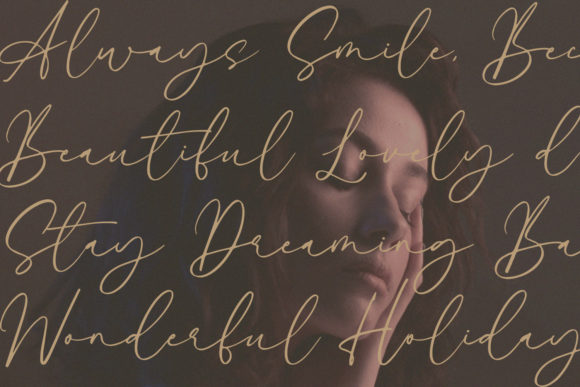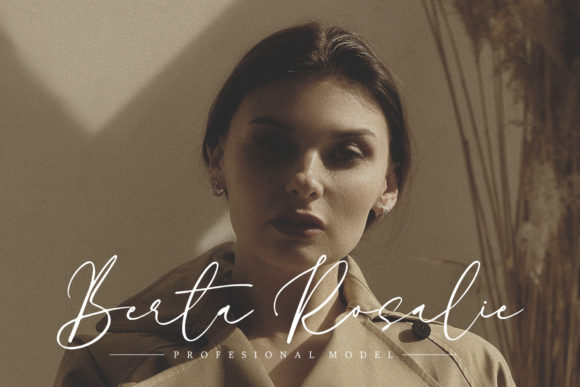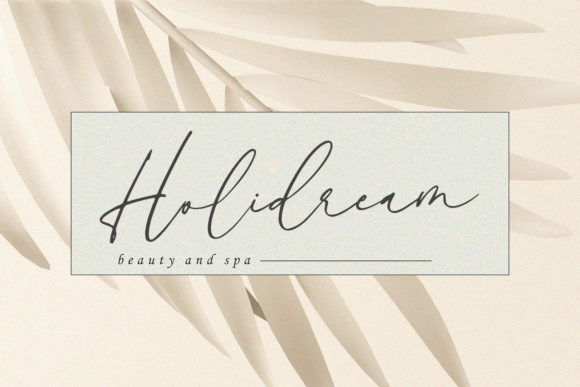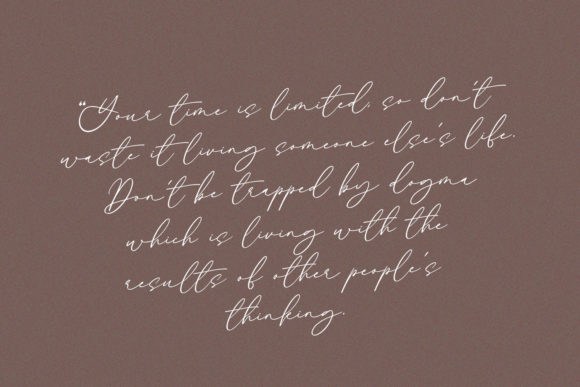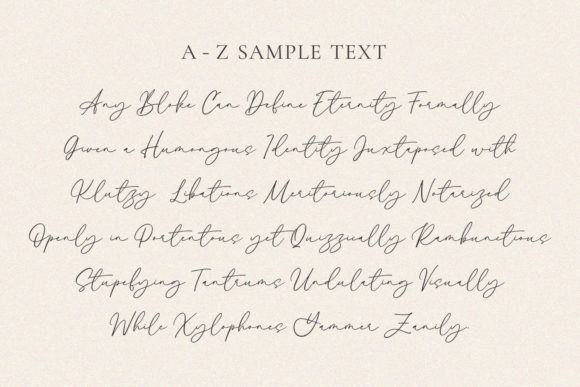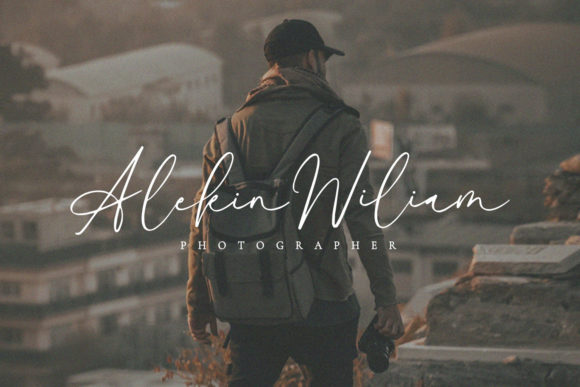
Alyson Signature Font: Elevate Your Designs with Elegance
In the world of typography, few fonts manage to capture the essence of elegance and sophistication as effectively as the Alyson Signature Font. This distinct, graceful script font has been making waves among designers and crafters alike, and for good reason. Its unique blend of classic charm and modern flair makes it the perfect choice for a wide range of design projects, from invitations and letters to cards and more.
The Distinctive Charm of Alyson Signature
Alyson Signature is not just another script font; it’s a statement piece. Its ravishing style is designed to turn heads and leave a lasting impression. The font’s graceful lines and fluid curves give it a dynamic, yet refined appearance that is sure to elevate any design. Whether you’re working on a wedding invitation, a greeting card, or a personal letter, Alyson Signature brings a touch of sophistication that is hard to match.
One of the standout features of Alyson Signature Font is its versatility. It’s a font that can adapt to various design needs and styles. For instance, it can add a romantic touch to wedding invitations, a personal touch to handmade cards, or a professional yet elegant look to business correspondence. The font’s adaptability makes it a valuable addition to any designer’s toolkit.
Why Designers and Crafters Love Alyson Signature
Designers and crafters love Alyson Signature for several reasons:
• Elegance: The font exudes elegance and sophistication, making it perfect for designs that require a touch of class.
• Readability: Despite its script nature, Alyson Signature is remarkably legible, ensuring that your message is conveyed clearly and effectively.
• Uniqueness: In a sea of generic fonts, Alyson Signature stands out for its distinctive style, allowing designers to create unique and memorable designs.
• Emotional Connection: The font’s graceful and flowing lines can evoke emotions, making it ideal for projects where a personal touch is desired.
Tips for Using Alyson Signature Effectively
To make the most of Alyson Signature Font, consider the following tips:
• Pair it with Simplicity: Let Alyson Signature be the focal point of your design by pairing it with simpler fonts or backgrounds.
• Experiment with Colors: While the font itself is elegant, experimenting with different colors can enhance its beauty and adapt it to various themes.
• Consider the Context: Ensure that the font aligns with the project’s tone and purpose. Alyson Signature is versatile, but it’s best suited for projects that require a level of formality or elegance.
Alyson Signature Font is more than just a script font; it’s a tool for designers and crafters to create stunning, elegant designs. Its distinctive style, versatility, and emotional resonance make it a valuable asset for anyone looking to add a touch of sophistication to their work. Whether you’re designing invitations, crafting personal letters, or creating beautiful cards, Alyson Signature is sure to help you achieve your design goals with flair. So, fall for its ravishing style and let it guide you in creating gorgeous designs that leave a lasting impression.